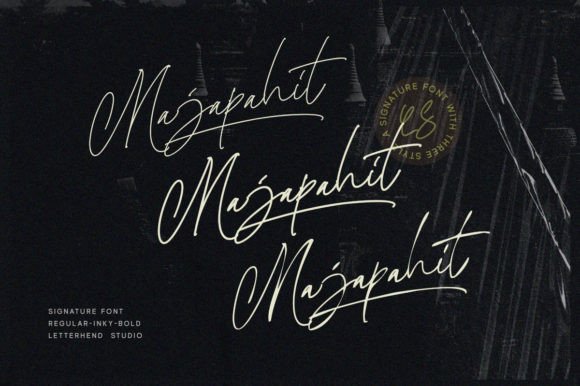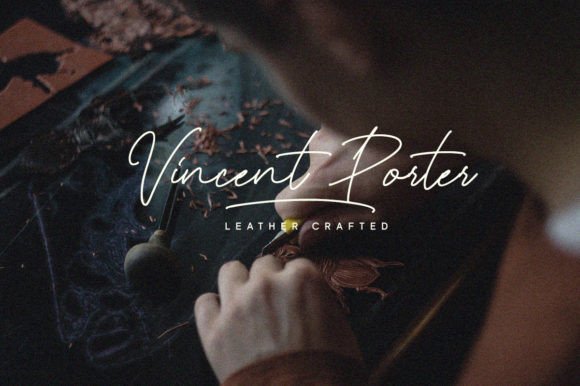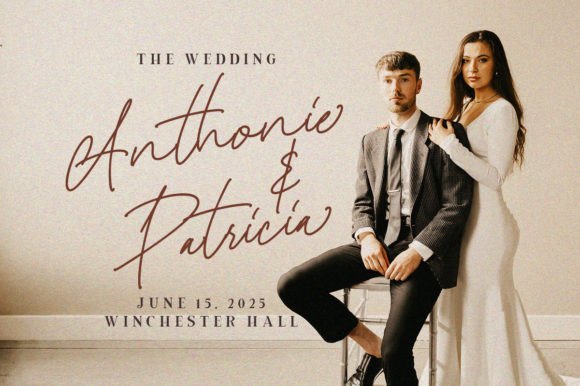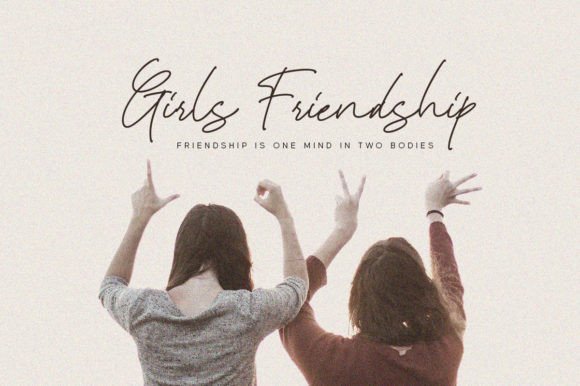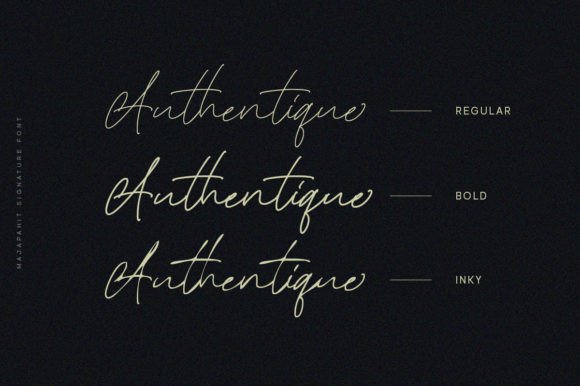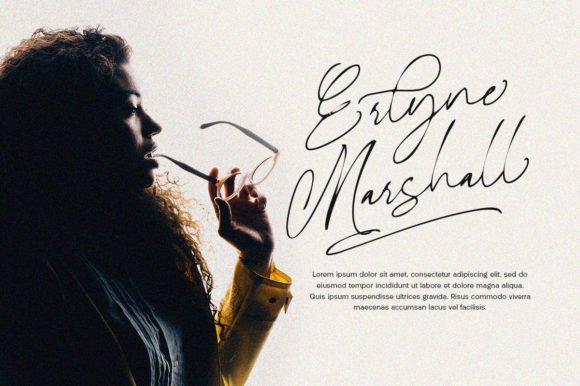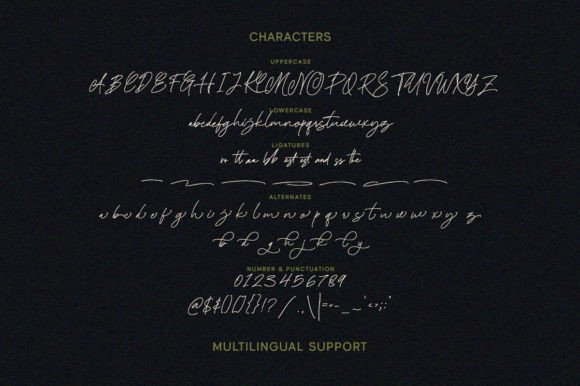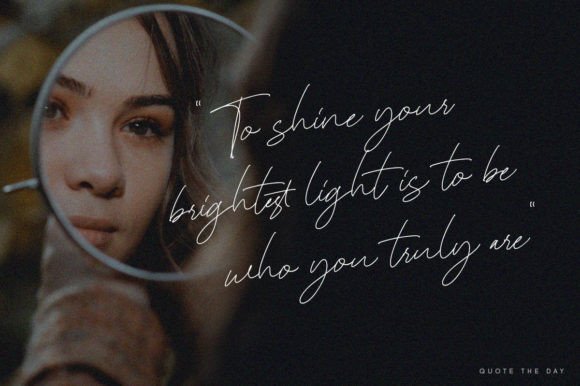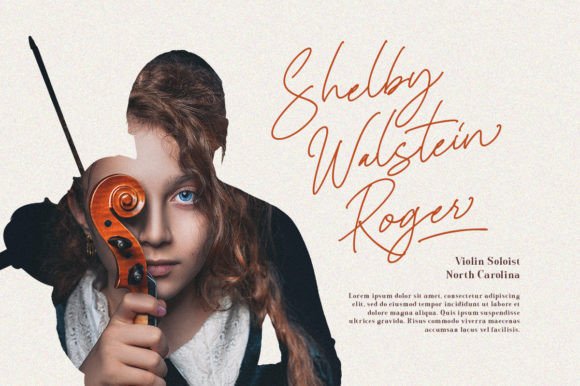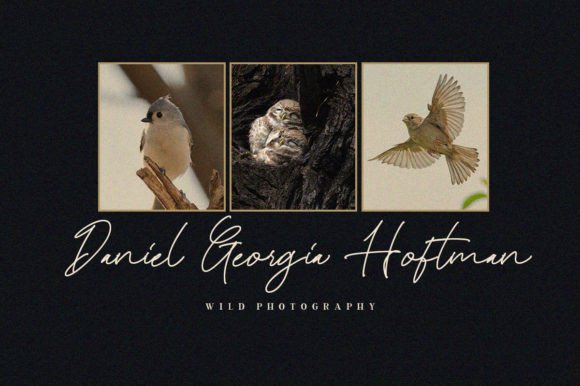
Majapahit Font
An Elegant Signature Script Typeface
Majapahit is a refined signature script font designed to bring elegance and sophistication to any project. Inspired by manual handwriting, this font blends smooth strokes with a modern aesthetic. Whether you’re creating logos, invitations, or packaging, Majapahit helps your work stand out with a polished, personal touch.
Its graceful curves and balanced characters make it versatile for both formal and creative uses.
Majapahit is a font you’ll reach for often. It’s perfect for logos and branding materials, including business cards and product packaging. The signature style creates a premium look that feels personal and unique, helping your brand connect with your audience.
For events, Majapahit works beautifully on wedding invitations, save-the-date cards, and thank you notes. The flowing script adds a romantic, elegant feel to any celebration.
This font also shines in editorial projects like magazines, book covers, and fashion catalogs. Its clean, smooth lines keep your titles and headlines sophisticated and easy to read.
On social media, Majapahit ensures your posts look cohesive and professional. Whether you’re announcing a new product or sharing inspiration, this font helps your content feel refined and engaging.
Even with its decorative flourishes, Majapahit stays clear and legible at any size. Balanced spacing and smooth connections between letters keep your text neat, whether you’re designing large headers or small captions.
For a modern, clean layout, pair Majapahit with a minimalist sans-serif font. Use Majapahit for main titles and highlight text, and the sans-serif for supporting content. This pairing creates a polished design that feels contemporary and elegant.
To showcase Majapahit’s signature style, use soft color palettes and neutral backgrounds. Shades like ivory, blush pink, and muted gray make the script stand out without overwhelming your design.
When designing invitations or product packaging, consider adding subtle borders or delicate icons that complement the handwritten feel.
On social media, embrace white space to keep your text the focus and make your posts clean and easy to read.
Think about the mood you want to create. Majapahit is perfect for projects that should feel elegant, timeless, and sophisticated.
Majapahit isn’t just another script font—it’s a creative tool that elevates every design with grace and style. From professional branding to personal keepsakes, this font adapts seamlessly to any purpose and brings a polished touch to your work.
Adding Majapahit to your font collection ensures you always have a versatile, beautiful option ready for any project. Whether you’re designing logos, event invitations, or social media graphics, this font makes every piece feel special and memorable.